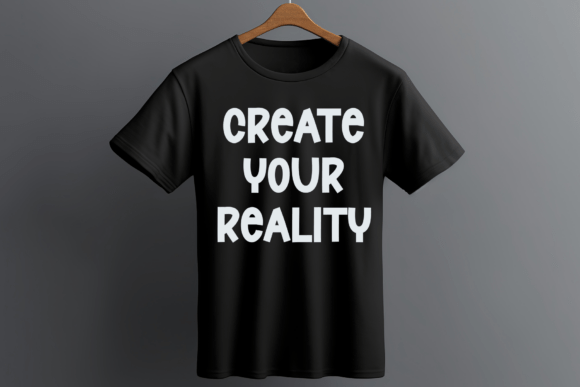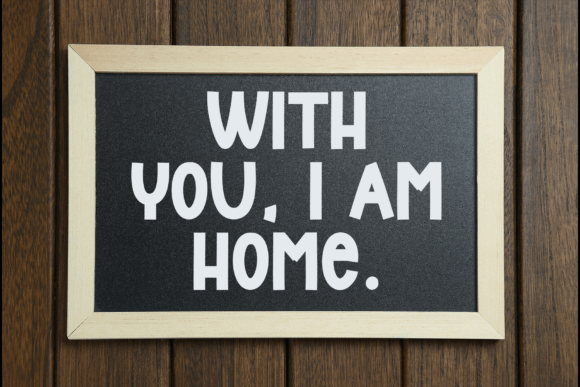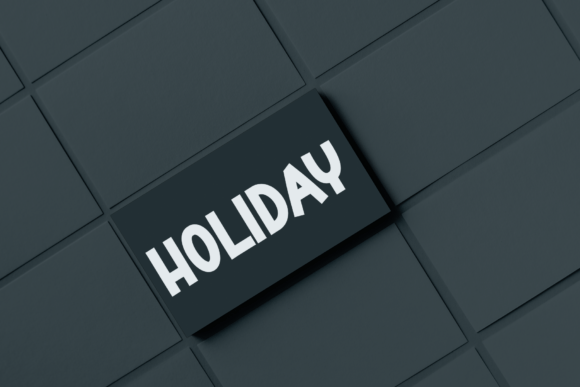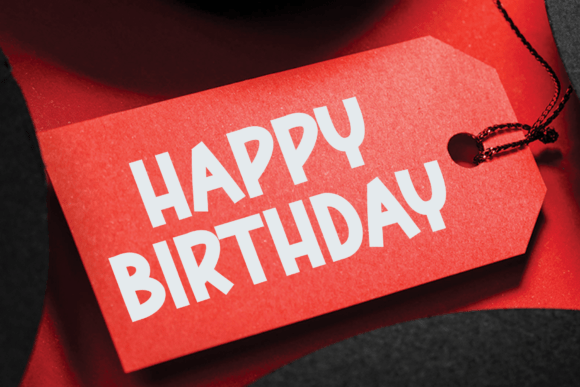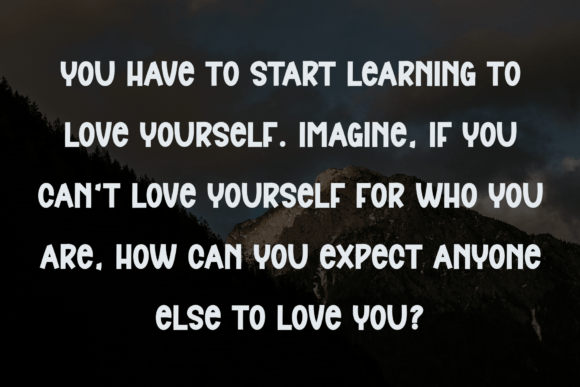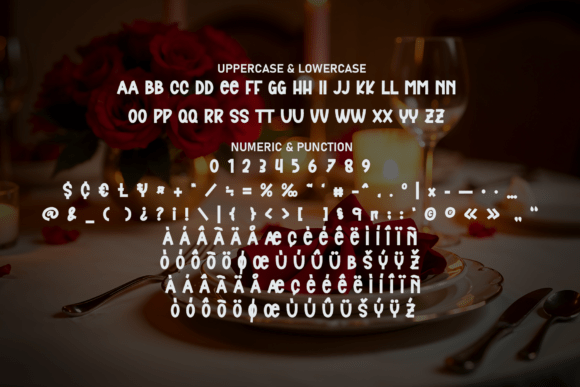
Dinner Valentine Font: Add a Touch of Whimsy to Your Designs
Are you looking for a font that exudes warmth, sweetness, and playfulness? Look no further than the Dinner Valentine Font! This delightful handwritten display font is perfect for designers and crafters seeking to add a cheerful touch to their projects. In this article, we’ll explore the charming allure of Dinner Valentine Font and how it can elevate your design portfolio.
The Charm of Dinner Valentine Font
Dinner Valentine Font is a beautifully crafted handwritten display font that radiates sweetness and warmth. Its tender etchings are designed to evoke feelings of joy and intimacy, making it perfect for projects that require a personal touch. The font’s amiable demeanour draws in users, making every crafted message an intimate, joyful journey.
Perfect for Wedding Invitations and Heartwarming Cards
One of the standout features of Dinner Valentine Font is its ability to bring a sense of fun and liveliness to any project. Wedding invitations, heartwarming cards, and other creative projects seeking a cheerful touch are all perfect applications for this font. Imagine being able to convey your heartfelt emotions through a beautifully designed font that captures the essence of love and friendship.
Maximizing Fun and Creativity
The Dinner Valentine Font is designed to be fun and playful, making it perfect for designers and crafters who want to add a whimsical touch to their projects. Whether you’re creating a custom wedding invitation or a heartfelt card, this font is sure to bring a smile to the recipient’s face. Its lively character breathes life into any project, making it a must-have for anyone looking to add a touch of personality to their designs.
Explore Your Fun Side with Dinner Valentine Font
With Dinner Valentine Font, you can explore your fun side and create projects that are truly unique and eye-catching. The font’s whimsically irresistible handwritten style makes it perfect for a wide range of applications, from DIY crafts to professional design projects. Whether you’re a seasoned designer or a crafty hobbyist, this font is sure to inspire you to create something truly special.
Key Features of Dinner Valentine Font
- Delightful handwritten display font
- Radiates sweetness and warmth
- Perfect for wedding invitations, heartwarming cards, and other creative projects
- Fun and lively character
- Amiable demeanour makes every crafted message an intimate, joyful journey
Tips for Using Dinner Valentine Font
To get the most out of Dinner Valentine Font, here are a few tips to keep in mind:
- Use it for projects that require a personal touch, such as wedding invitations and heartwarming cards
- Pair it with other fonts to create a unique and eye-catching combination
- Don’t be afraid to get creative and try new things – Dinner Valentine Font is designed to be fun and playful!
In conclusion, Dinner Valentine Font is a charming and delightful handwritten display font that’s perfect for designers and crafters seeking to add a touch of whimsy to their projects. Its sweet and warm character makes it perfect for wedding invitations, heartwarming cards, and other creative projects that require a personal touch. With its fun and lively character, Dinner Valentine Font is sure to inspire you to create something truly special. So why wait? Download Dinner Valentine Font today and start exploring your fun side!